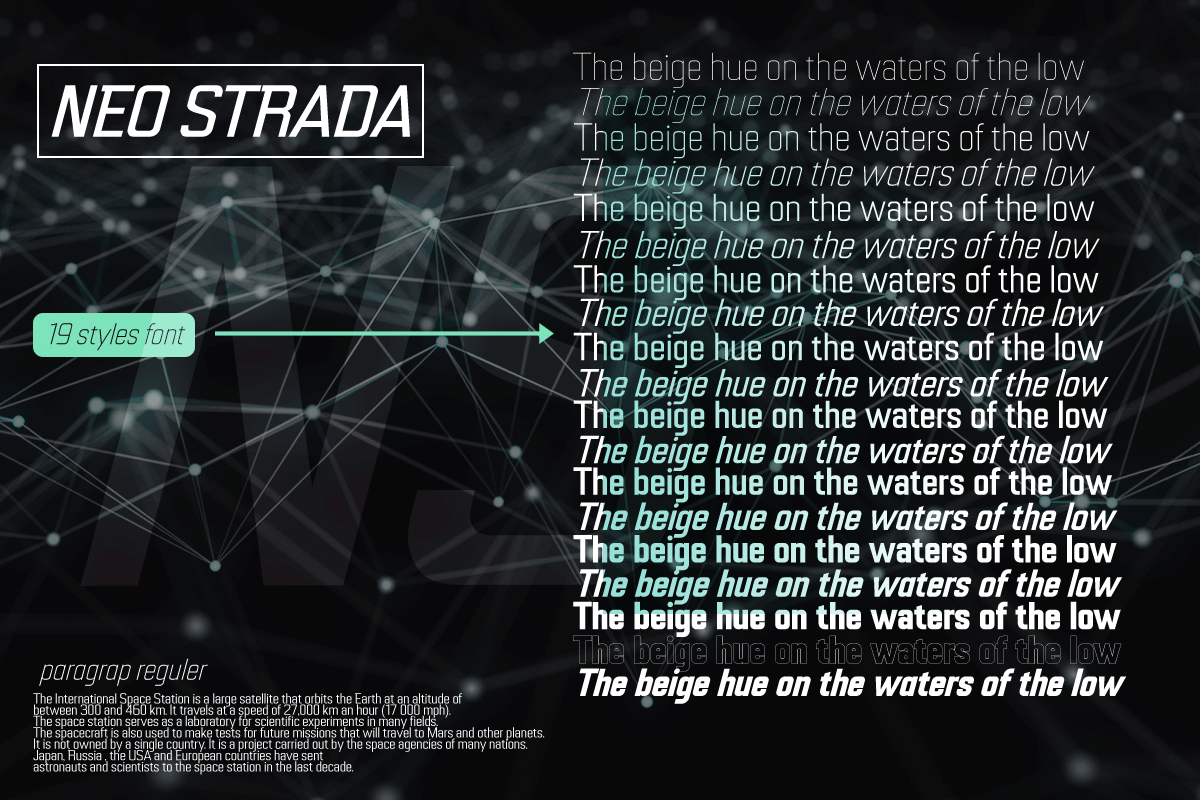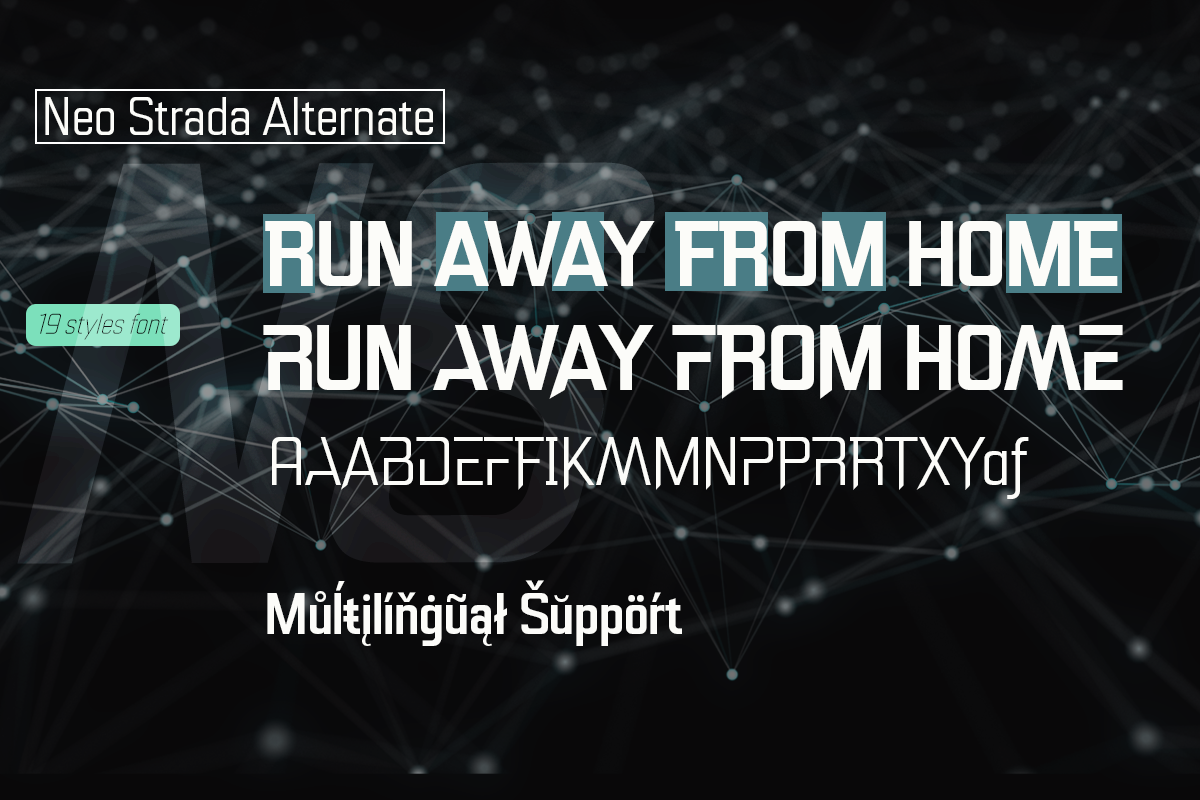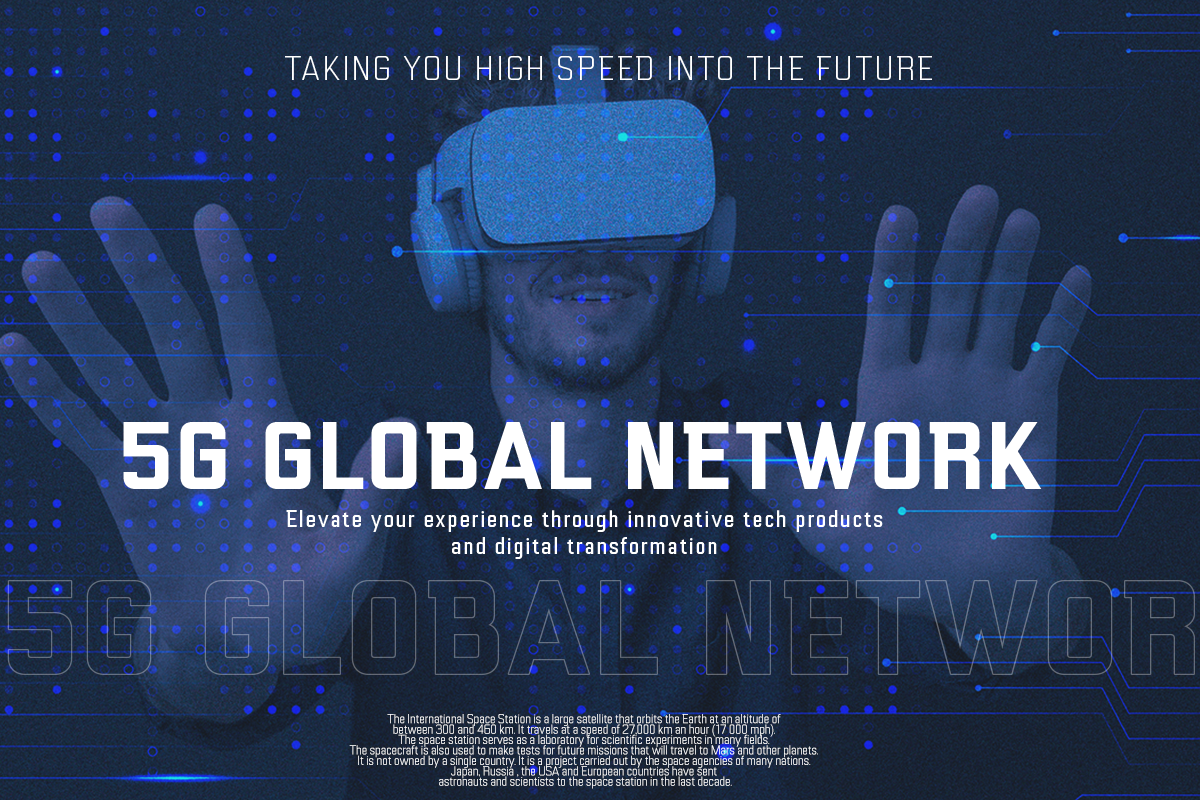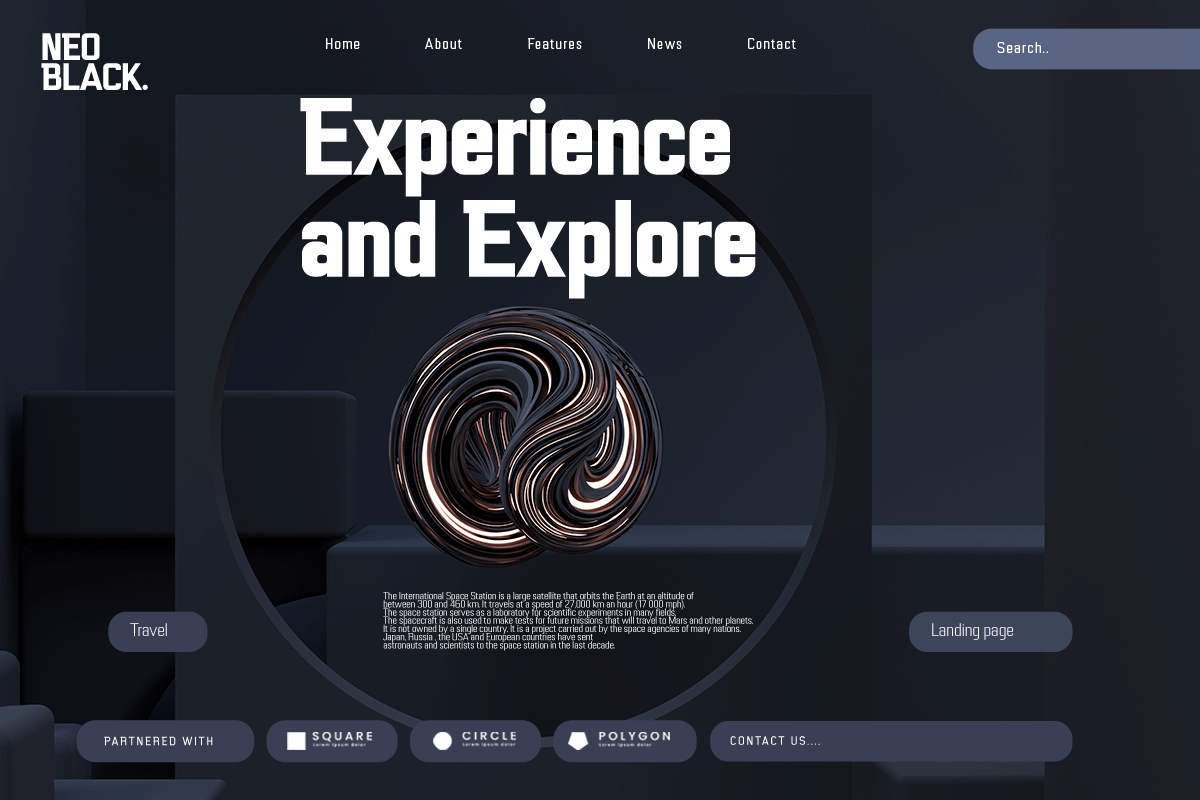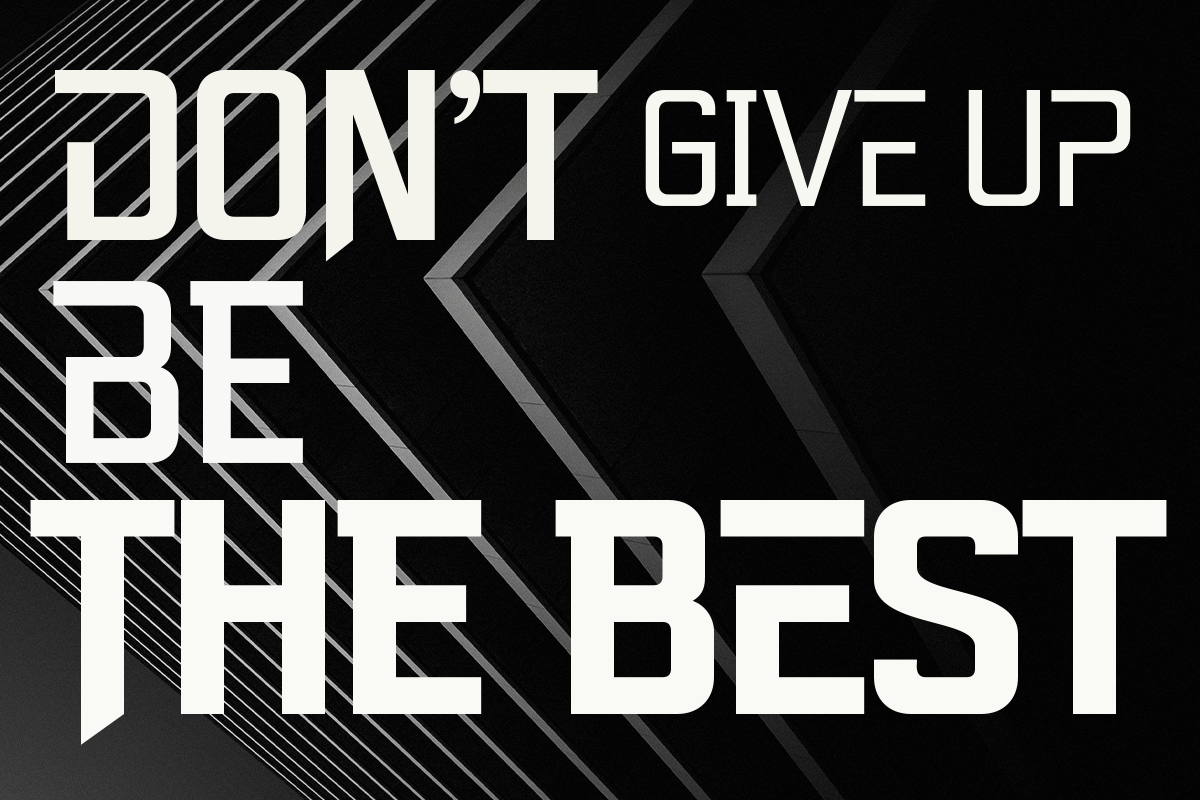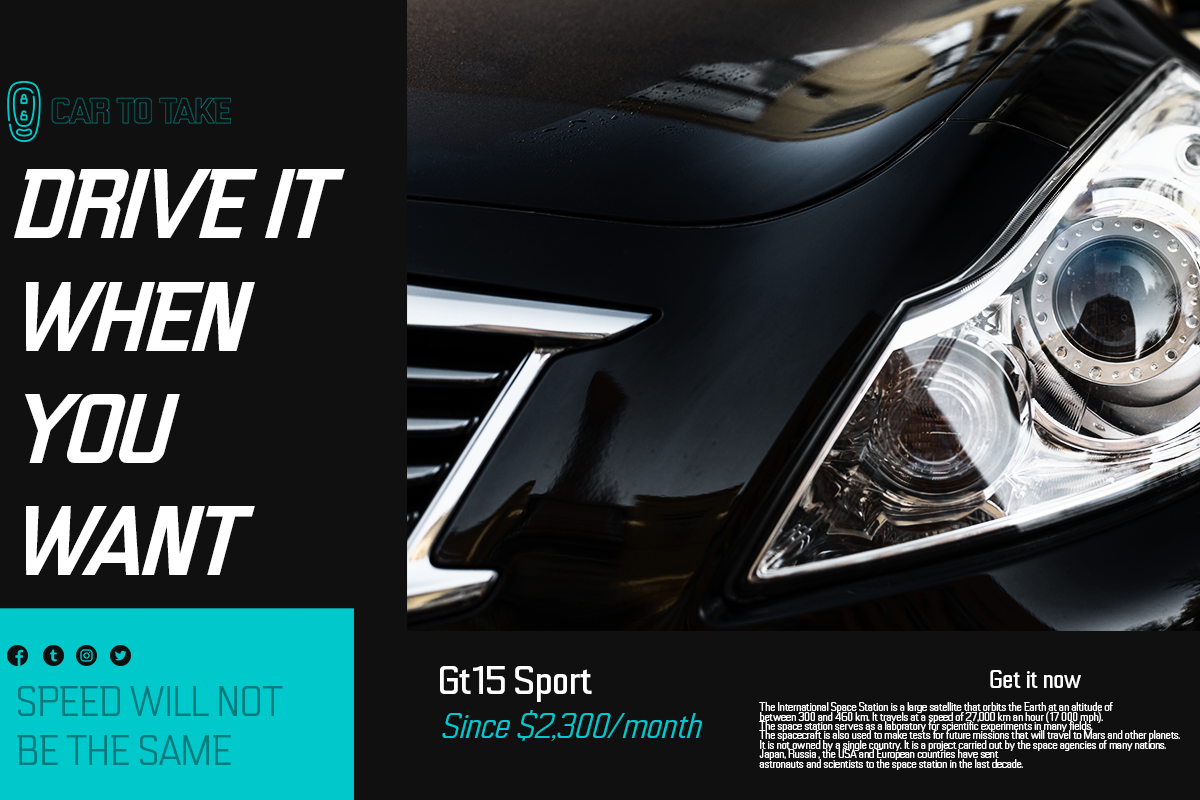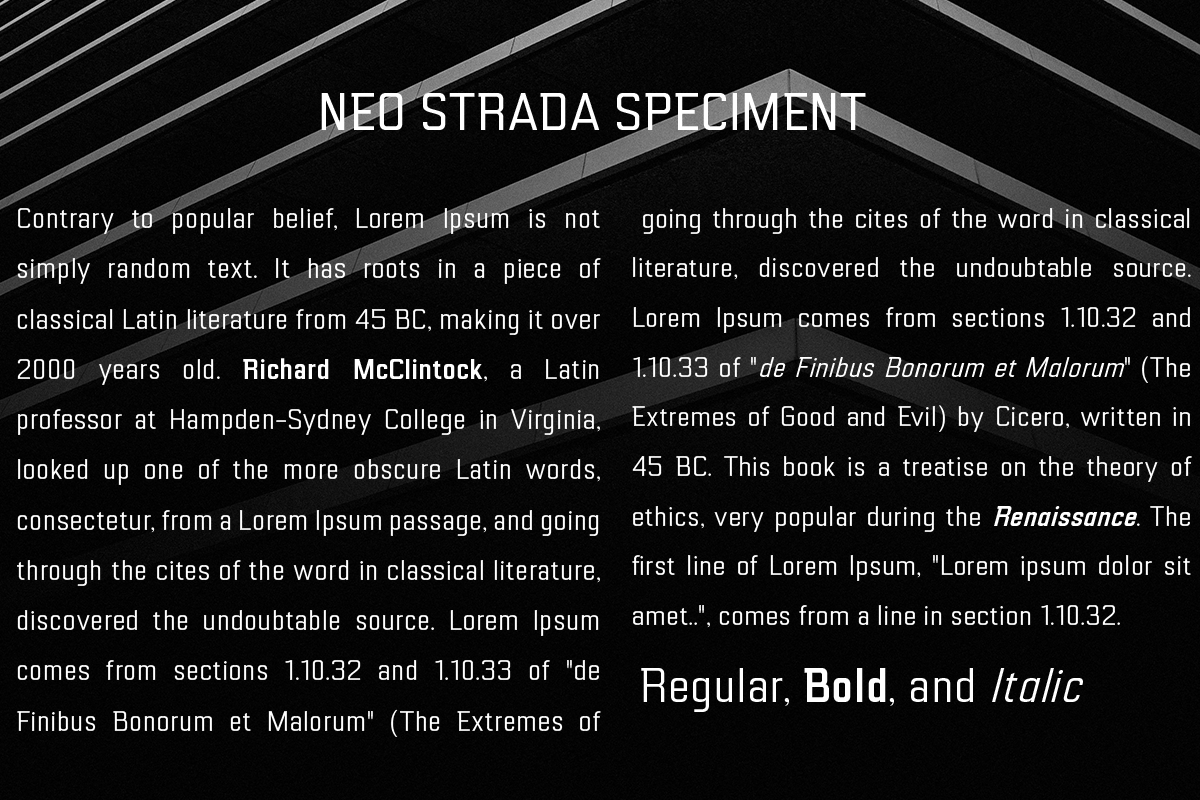
Neo Strada
Neo Strada is a bold geometric sans serif font family that comes in many weights and several alternates. It’s perfect for documents, font logos, blogs, social media, marketing campaigns, and many other projects!